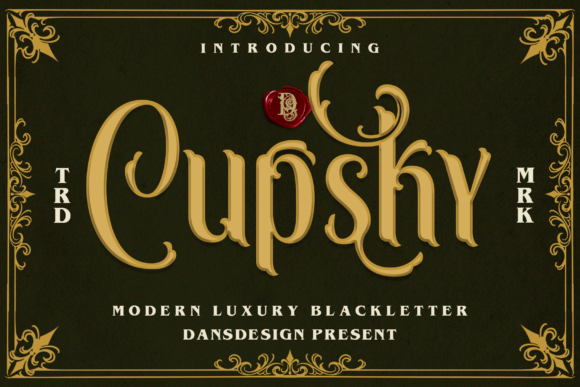
Journey into the realm of Cupsky Font, a striking blackletter font crafted by the ingenious Dansdesign. Its victorian flare beckons you to explore a world of creativity and elegance. Adorned with intricate details and flowing curves, Cupsky Font is the perfect companion for your creative endeavors. Dive into the depths of its charm and unveil the hidden beauty within your designs.
With Cupsky Font, transform your wedding invitations into timeless keepsakes, each letter a testament to your love story. Create captivating stationary art that speaks volumes about your personal style. Engage your audience with mesmerizing social media posts that exude elegance and sophistication. The possibilities are endless, as Cupsky Font unlocks a new realm of artistic expression.
Beyond its aesthetic appeal, Cupsky Font boasts exceptional versatility, adapting seamlessly to a myriad of projects. Its distinctive character adds a touch of intrigue to branding materials, leaving a lasting impression on your clients. Unleash your imagination and craft stunning logos, business cards, and marketing campaigns that resonate with your brand's essence.
Elevate your creative projects with Cupsky Font, a font that transcends boundaries and captivates hearts. Its unique style and versatility make it the ideal choice for those seeking to make a statement. Embrace the extraordinary and let Cupsky Font guide you on an artistic journey like no other.